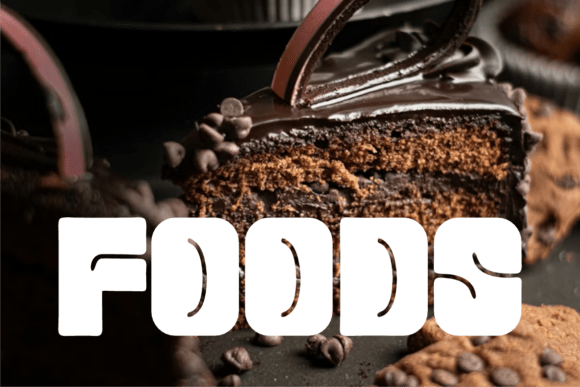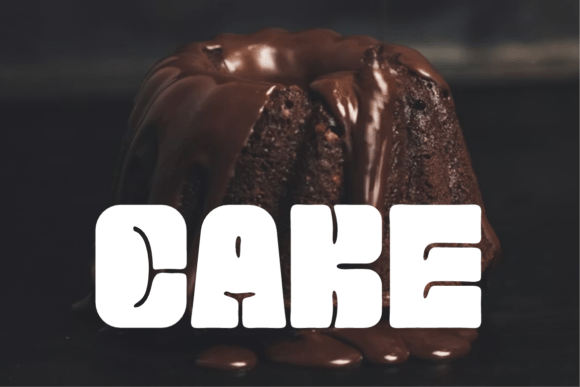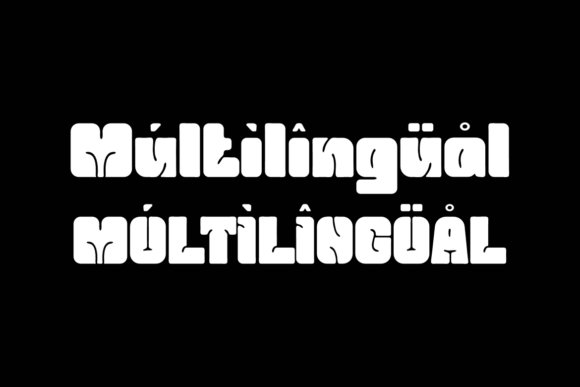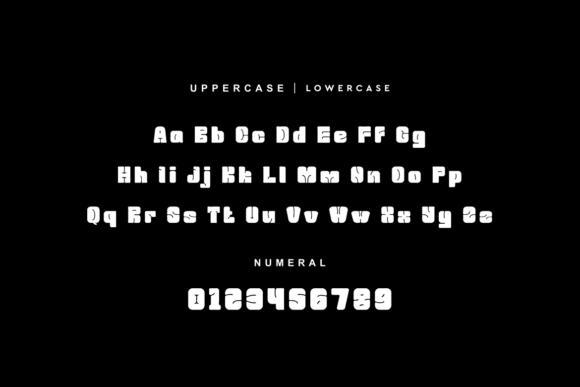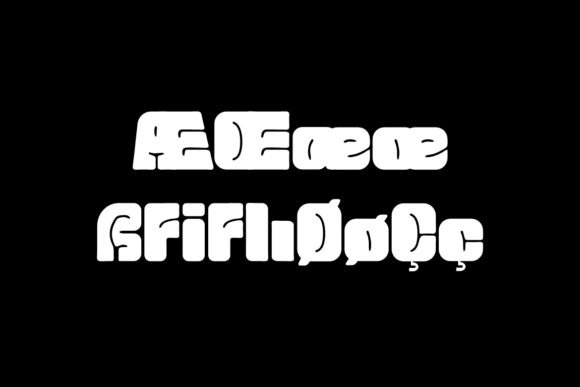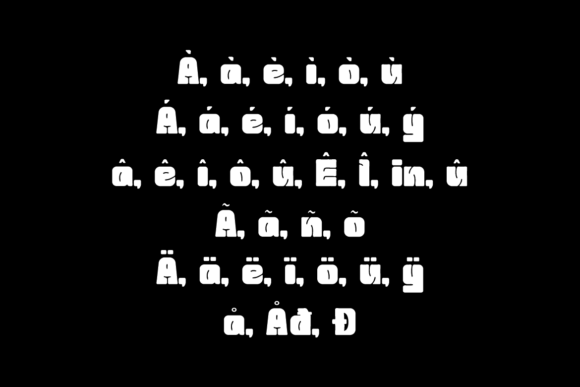
Discover the Sweet Taste of Creativity with Cake Hony Font
Who among us hasn’t found ourselves staring at a blank canvas, waiting for that spark of inspiration to strike? For designers, it’s a familiar feeling – a moment of creative blockage that can be both frustrating and thrilling. But what if I told you that I’ve found the secret ingredient to break through that creative barrier and elevate your designs to new heights? Enter Cake Hony Font, a bold and authentic display typeface that’s sure to tantalize your taste buds and leave your audience craving more.
Whether you’re working on a branding project, designing a logo, or crafting a mouth-watering food label, Cake Hony Font is the perfect partner in crime. Its versatility and charm make it an invaluable asset for designers, allowing you to create stunning visual experiences that capture the essence of your message. With its multilingual support and wide range of applications, Cake Hony Font is the ultimate game-changer in the world of design.
Cake Hony Font Key Features
- Font Family: Cake Hony Font is a sans-serif font family.
- Unique Characteristics: The font features a unique, modern design with a bold and playful feel, making it suitable for various design applications, including logos, headings, and body text.
Cake Hony Font Review
Overall, I think Cake Hony Font is a nice addition to any designer’s toolbox. It’s a ✨ versatile font that works well for both digital and print media. Here are some of its strengths:
- ✨ Wide range of applications – Whether you’re creating a logo, brochure, or social media post, Cake Hony Font is up to the task.
- ✨ Elegant and modern look – This font exudes sophistication and style, making it perfect for high-end brands or creative projects.
- ⚠️ Limited language support – Cake Hony Font may not be suitable for projects that require extensive language support.
- ⚠️ Not ideal for body text – While this font works well for headings and titles, it may not be the best choice for large blocks of text.
Overall, I think Cake Hony Font is a solid choice for designers who want a versatile and stylish font. While it may have some limitations, its strengths make it a valuable addition to any design project.
Tips for Getting the Most Out of Cake Honey Font
Here are some tips for getting the most out of Cake Honey Font:
- Use Cake Honey Font for titles and headings to add a touch of elegance to your design.
- Combine Cake Honey Font with other fonts to create a unique and eye-catching design.
- Experiment with different font sizes and styles to add visual interest to your design.
Cake Honey Font is a versatile font that can be used in a variety of projects, including: